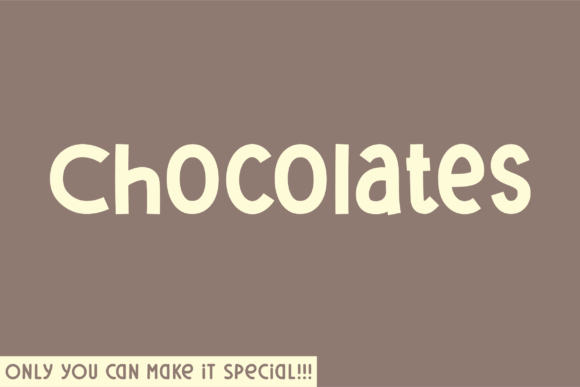
Introducing Chocolates Font - The Exquisite Sans Serif Font Family Perfect for Your Creative Endeavors!
Immerse yourself in the world of typography with Chocolates Font, an elegant and bold sans serif font family that will captivate your audience and leave a lasting impression. Created by the renowned font designer, Hanna Bie, Chocolates Font is meticulously crafted to deliver both style and versatility, making it an essential tool for designers, content creators, and social media enthusiasts alike.
With its clean lines, delicate curves, and striking presence, Chocolates Font exudes a timeless charm that will elevate your designs to new heights. Whether you're crafting stunning wedding invitations, creating eye-catching social media posts, or designing beautiful stationary art, Chocolates Font will effortlessly add a touch of sophistication to your work.
Unleash your creativity and let Chocolates Font be your muse. Its incredibly versatile style adapts effortlessly to a wide range of design projects, from elegant logos and branding materials to captivating posters and flyers. The possibilities are endless, limited only by your imagination.